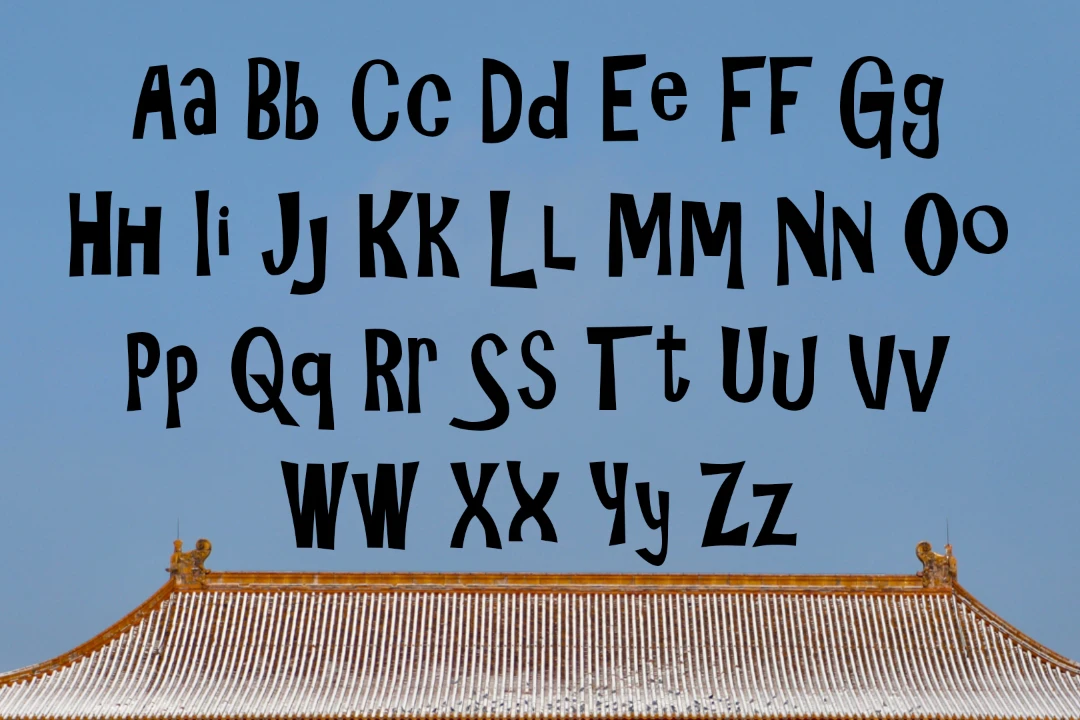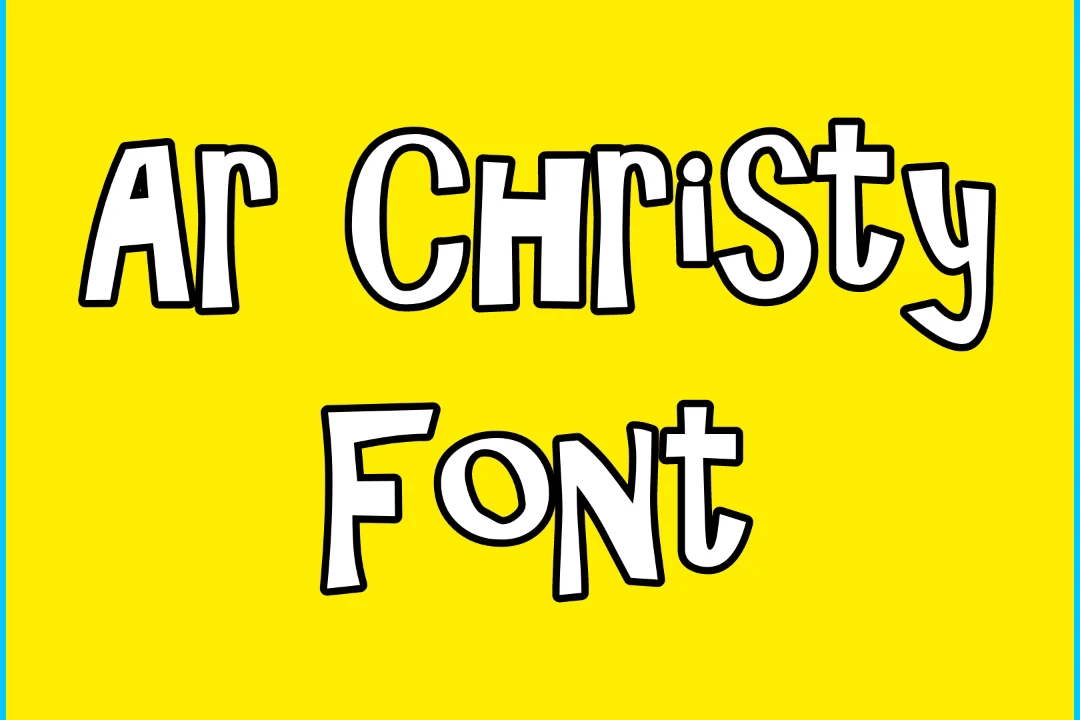
En-step Incorporated initially established the Ar Christy font. This font was first released in 1997. It was officially announced to be used for commercial purposes by Arphic Technology Co, LTD in 2005.
Uses of Ar Christy Font
It is very decorative, and it is perfect for designing wedding or event invitation cards. You can also make suitable logos for your websites, which will be trending in the following years.
This font can be used by graphic designers, event planners, businessmen, teachers, artists, and writers. If you are one of them, then you are highly suggested to use this font and get the chance of ranking in this competitive field where everyone is struggling.
What does the Ar Christy font look like?
It is an amazing cartoon-shaped character typeface that has playful, energetic characters.